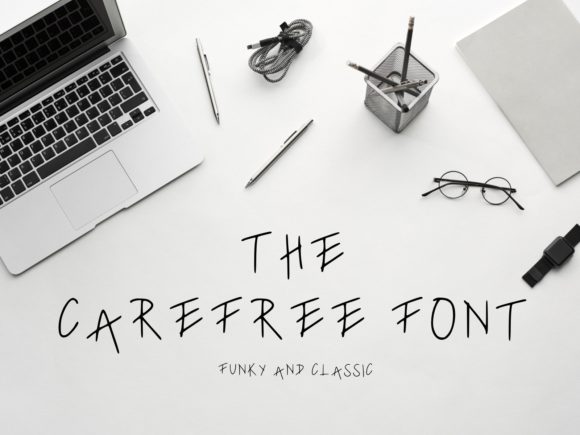
Prepare to be captivated by Carefree Font, the epitome of elegance and whimsy! This enchanting sans serif font, meticulously crafted by the talented fonts.ness, exudes an aura of playfulness and charm, making it the perfect choice for adding a touch of magic to your creative endeavors.
Whether you're a seasoned crafter seeking to elevate your Cricut Joy card designs or simply a font enthusiast longing to infuse your projects with an air of sophistication, Carefree Font is your perfect match. Its versatile nature allows it to adapt seamlessly to any style or purpose, from playful invitations to sophisticated branding materials.
Imagine your audience's delight as they encounter the graceful curves and delicate strokes of Carefree Font. Witness the transformation as your projects blossom into captivating works of art, evoking emotions and leaving a lasting impression.
Join the countless crafters and designers who have embraced the allure of Carefree Font, unlocking a world of creative possibilities. Let your imagination soar as you explore the endless applications of this versatile typeface. Whether you're crafting personalized gifts, designing eye-catching social media graphics, or simply adding a touch of whimsy to your everyday correspondence, Carefree Font is your indispensable companion.
So what sets Carefree Font apart? It's the little details that make all the difference. The subtle variations in stroke width, the carefully balanced letterforms, and the meticulous attention to spacing and kerning—all these elements combine to create a font that is both visually appealing and highly legible.
With Carefree Font at your fingertips, you'll discover a new level of creative freedom. Its versatility knows no bounds, lending itself effortlessly to a multitude of projects and styles. Unleash your inner artist and let the playful spirit of Carefree Font guide you towards extraordinary creations.
Embrace the allure of Carefree Font today and watch your projects transform into captivating masterpieces. Let its elegant simplicity and undeniable charm elevate your designs to new heights of creativity and sophistication. Join the growing community of crafters and designers who have discovered the magic of Carefree Font and immerse yourself in a world of endless creative possibilities.